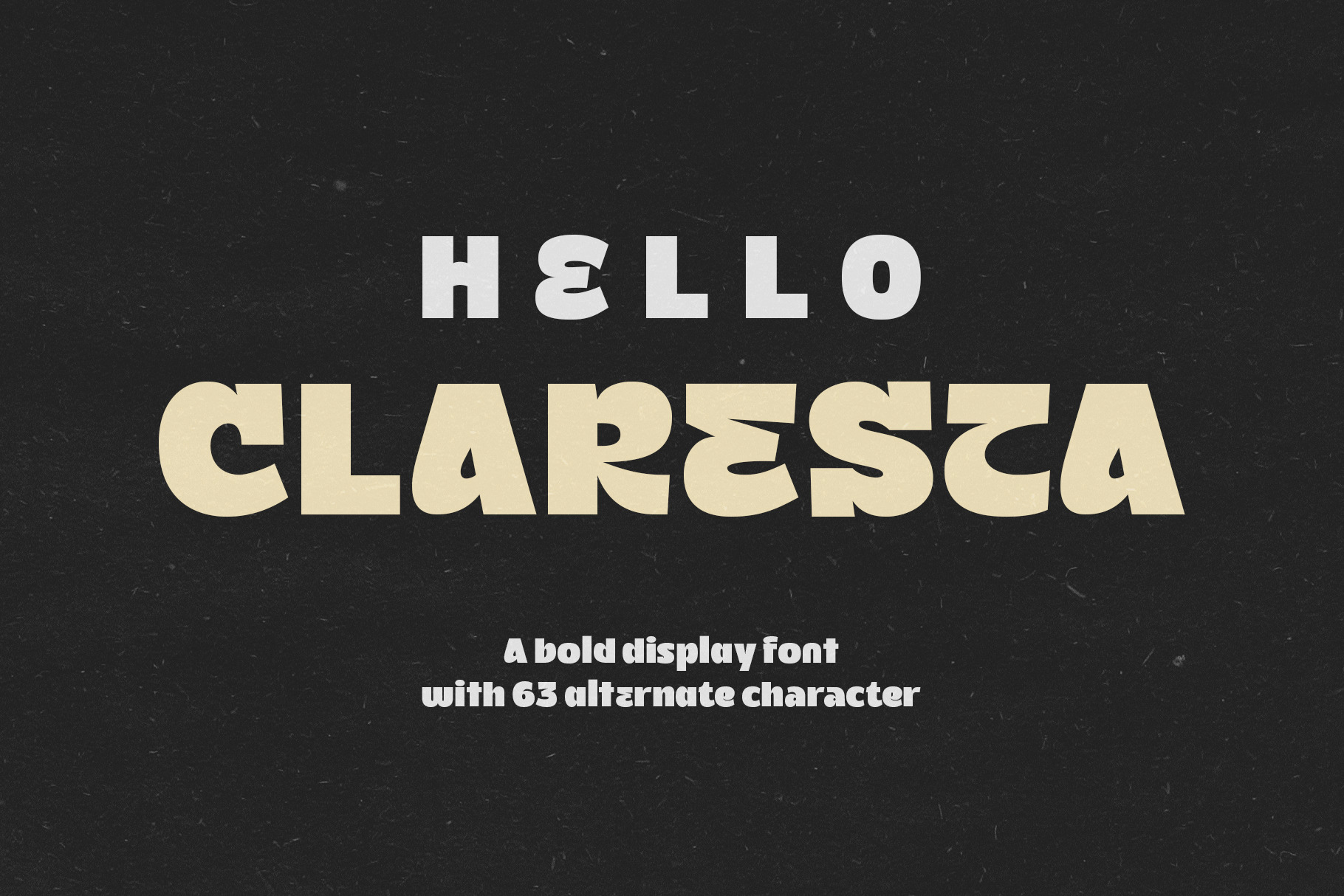
Claresta Display Font
Meet our new Font Claresta
Claresta is a bold font with a classic yet fun feel. It exudes a strong character with firm lines, all while maintaining a playful impression.
- Was completely with 63 alternate characters